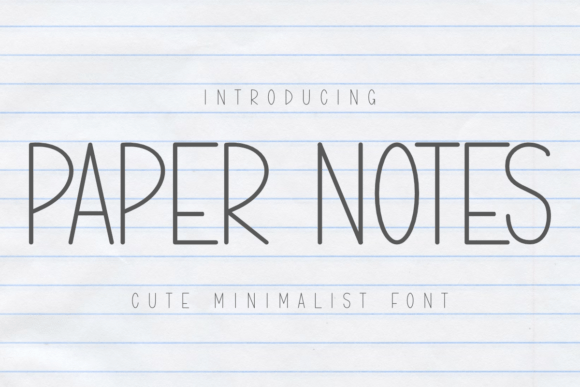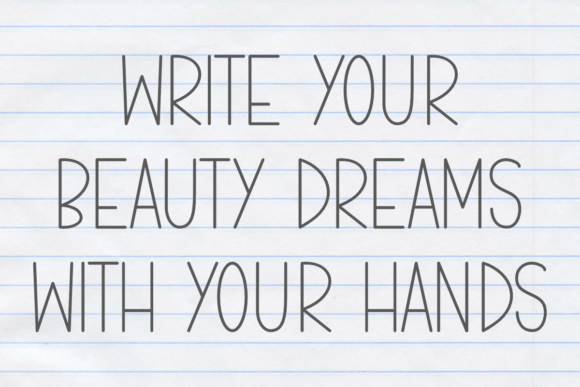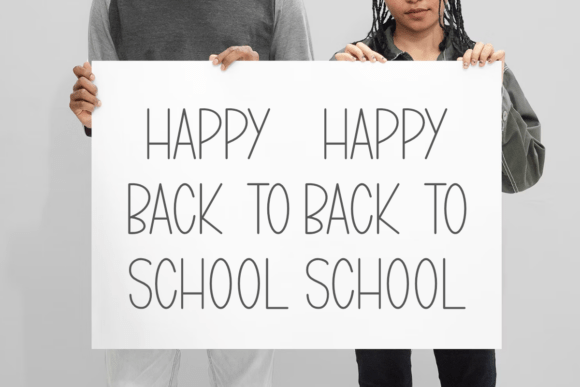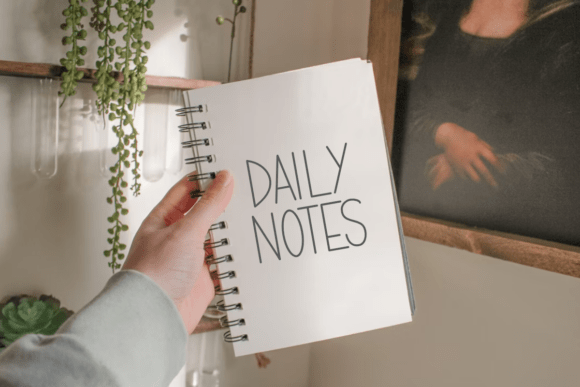
Paper Notes Font
Introducing Paper Notes, an elegantly minimalist, thin sans serif font that mirrors the charm of natural handwriting. This font excels in bringing a simplistic allure to planners, interior kdp, journals, cricut creations, stickers, labels, and inspiring quotes. Whether you’re crafting for tumblers, mugs, tote bags, or other inventive pieces, Paper Notes lends its understated touch, transforming ordinary crafts into extraordinary artistic expressions.